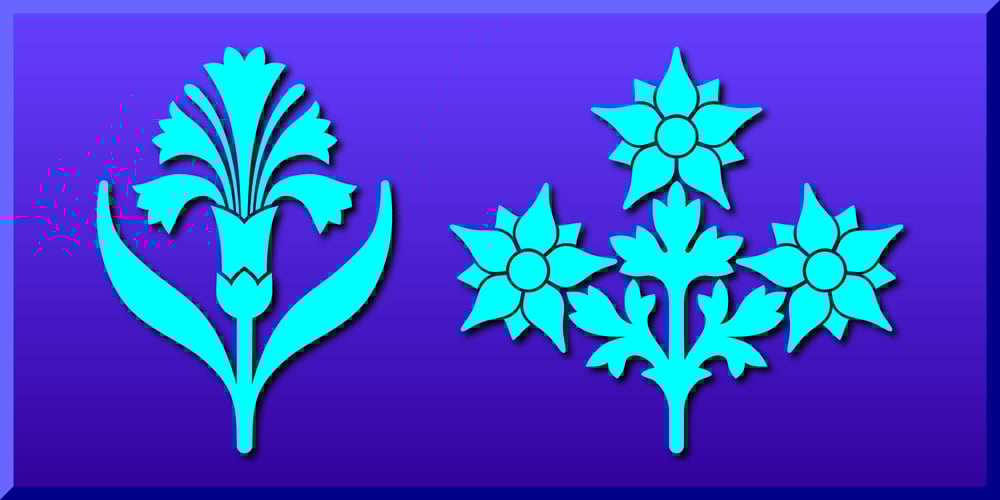
Blooming Ornaments Font Family was designed by Gerald Gallo and published by Gerald Gallo. Blooming Ornaments contains 1 styles and family package options. Blooming Ornaments was inspired by patterns of the Middle Ages. There is an assortment of 47 ornaments located under the character set keys.